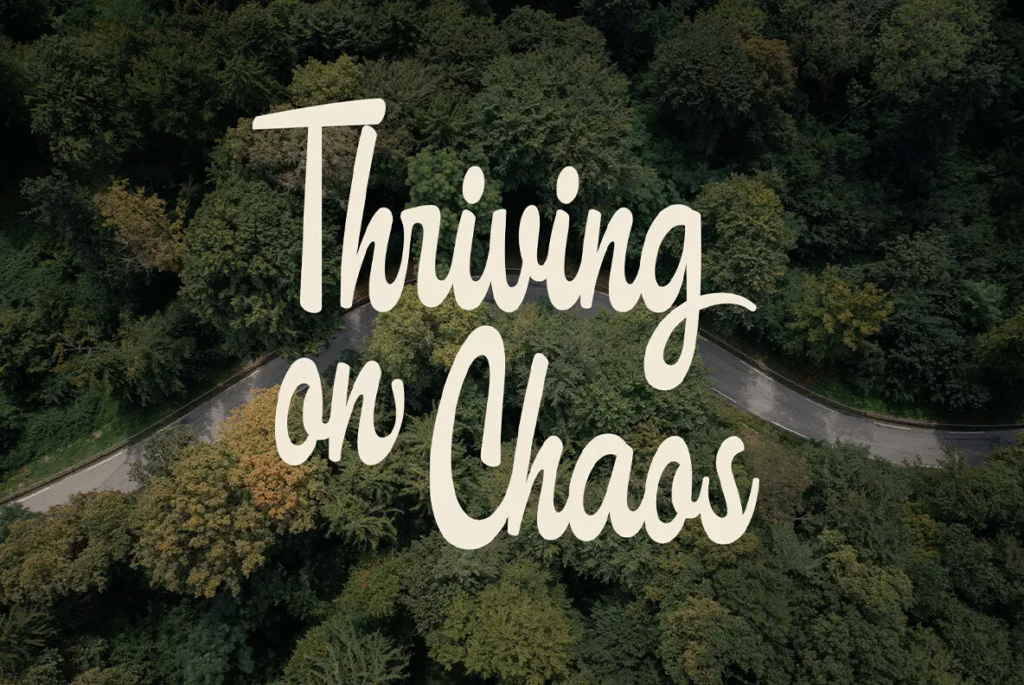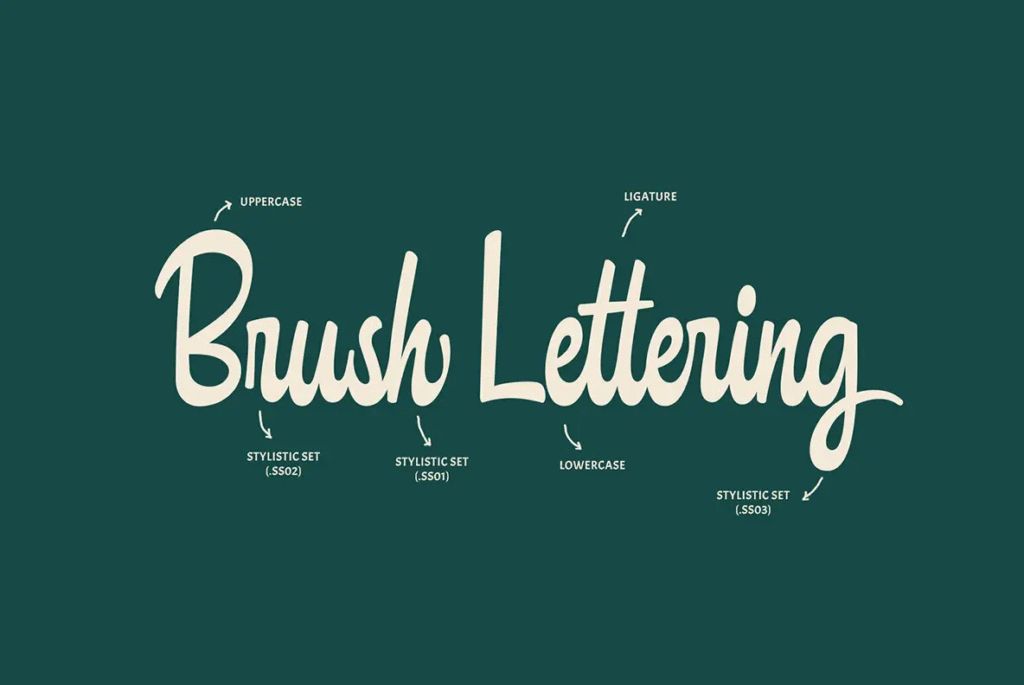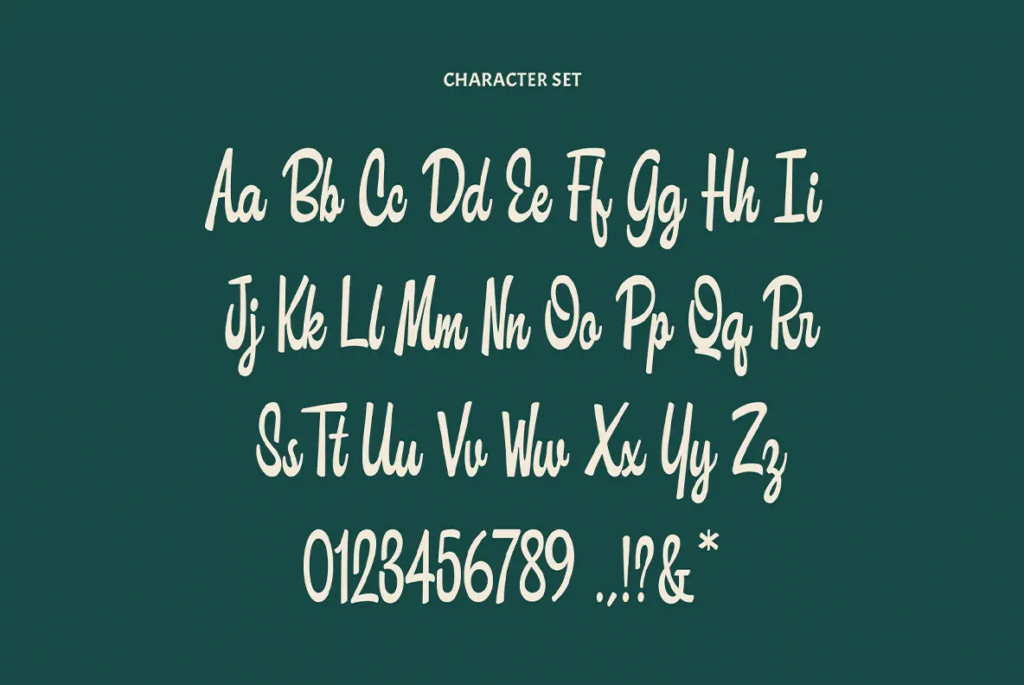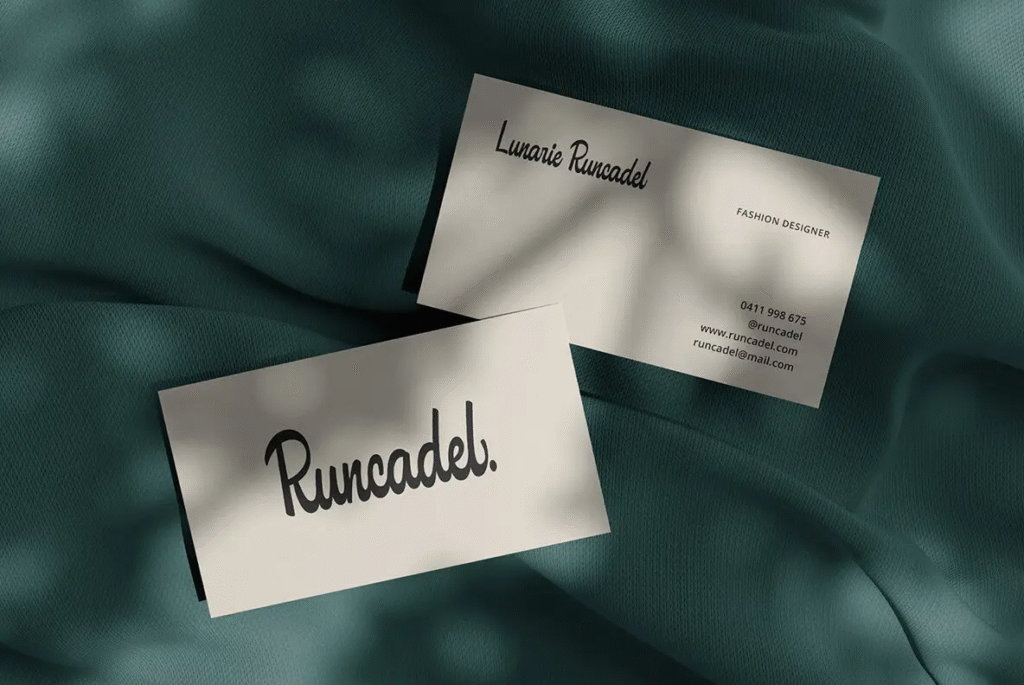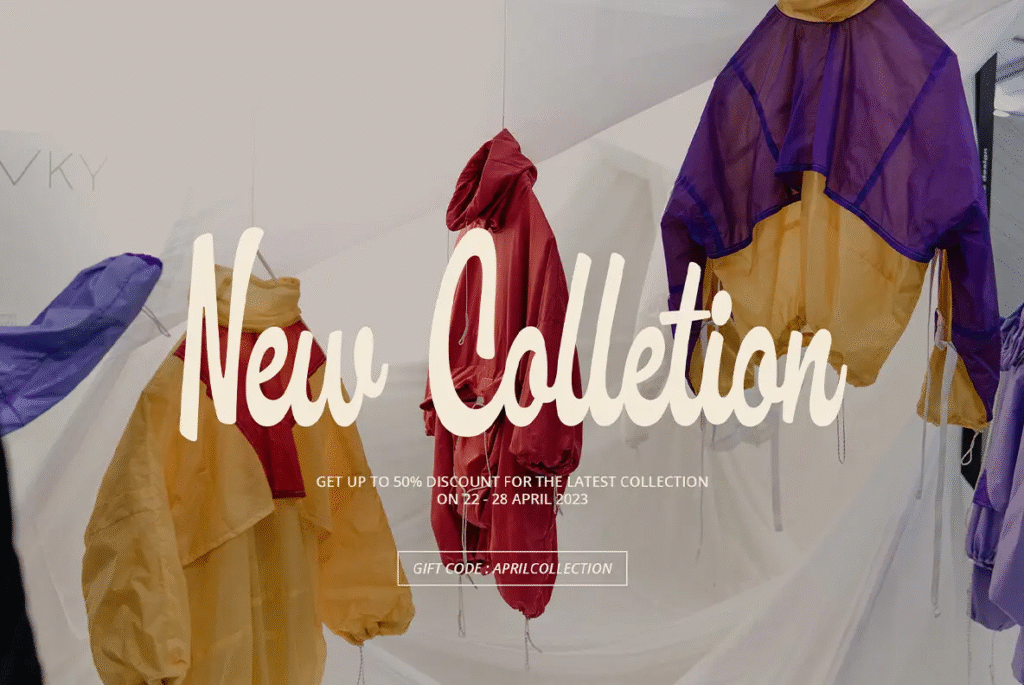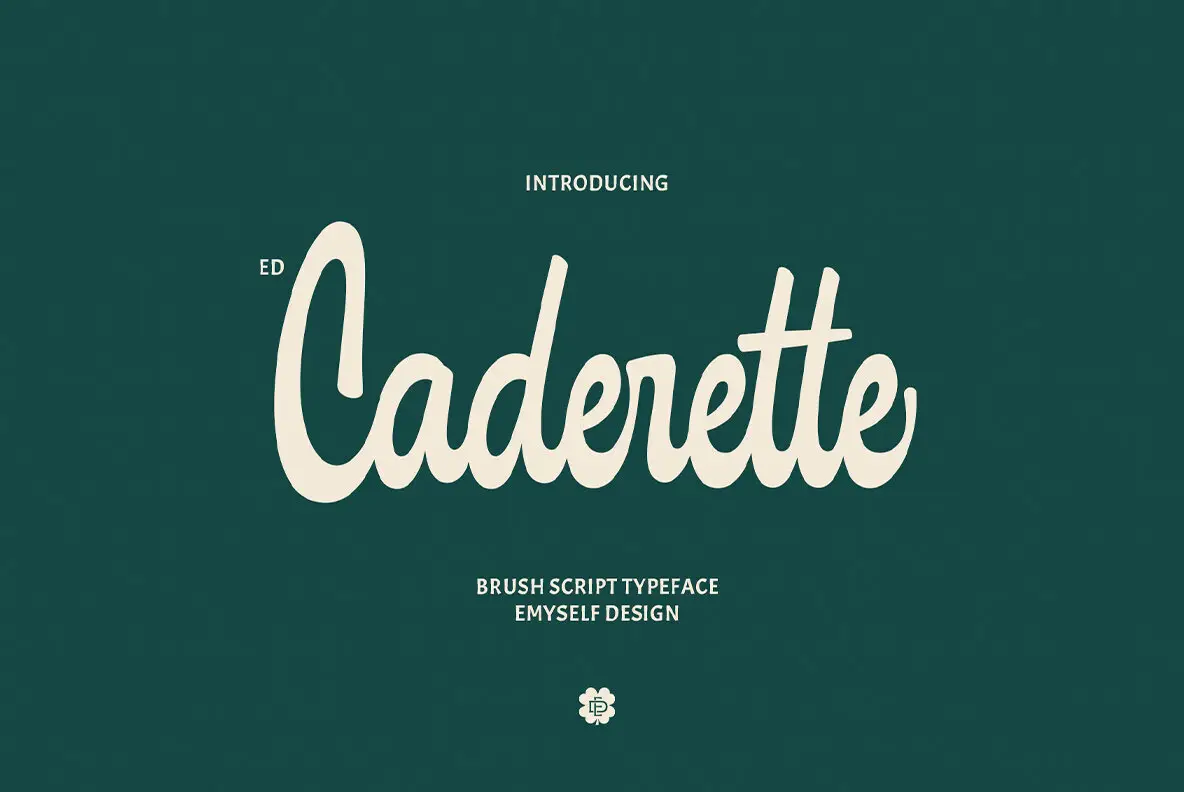
ED Caderette Font
ED Caderette casual script font with marker-style strokes and smooth ligatures.
ED Caderette script font family sample with handwritten style.
Branding mockup featuring ED Caderette script font.
Invitation design created with ED Caderette casual script.
Product packaging showcasing ED Caderette typeface.
Apparel design using ED Caderette handwritten script.
ED Caderette – Classic Casual Script Font
Created by Emyself Design, ED Caderette is a classic casual script font that beautifully mimics the natural look of marker-style handwriting. With its smooth curves, ligatures, and stylistic sets, this typeface adds warmth and personality to any creative project.
Its versatility makes it ideal for logotypes, product packaging, invitations, cards, quotes, apparel, headers, web design, magazines, and books. Designed with multilingual support, ED Caderette adapts seamlessly to a variety of design needs, from branding to editorial layouts.
Whether you’re creating a personal project or a professional brand, ED Caderette’s relaxed yet sophisticated character ensures that your designs stand out with casual elegance.
Key Features
• Casual script with marker-like strokes
• Includes ligatures & stylistic sets
• Multilingual support for wide usability
• Perfect for branding, quotes, packaging, and editorial
ED Caderette Font
ED Caderette is a casual script font with marker-style strokes, ideal for branding, invitations, packaging, and editorial design.